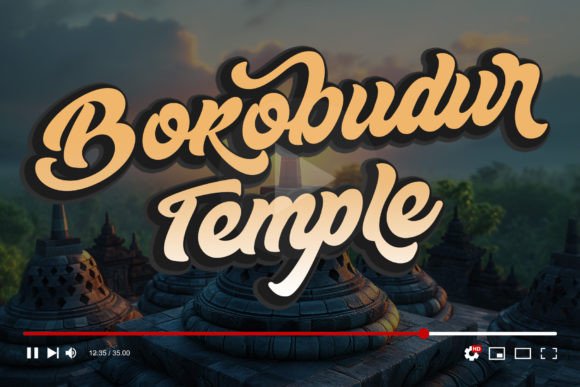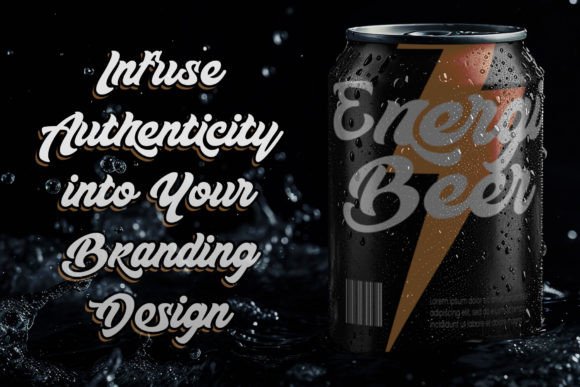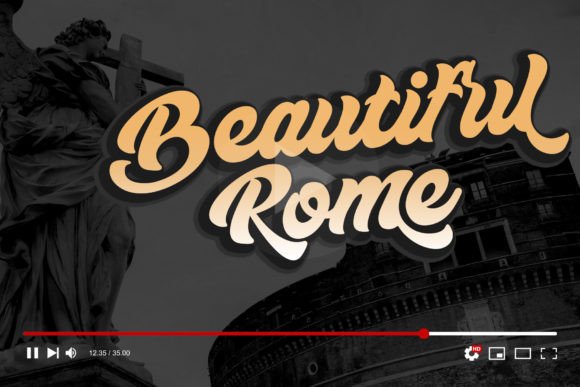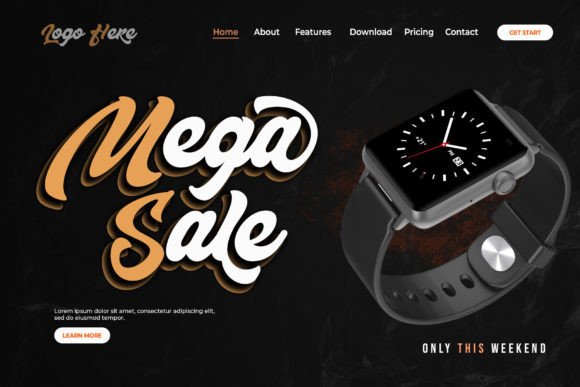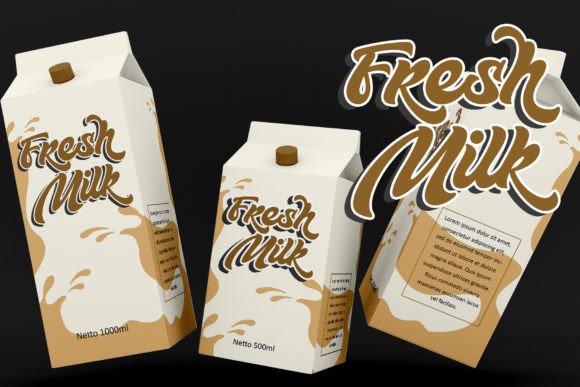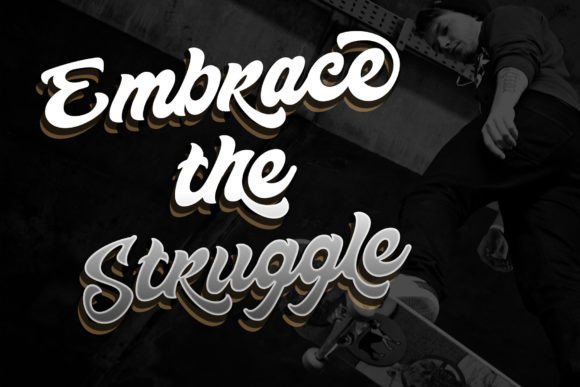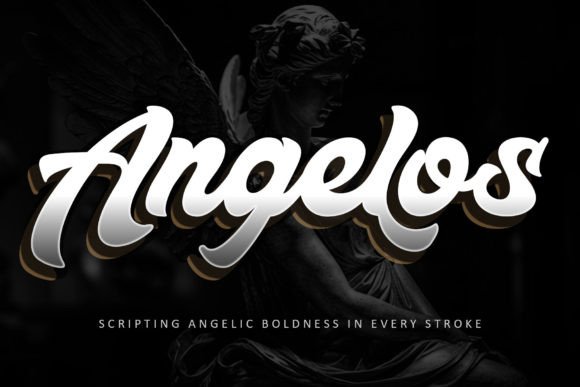
Introducing Angelos: The Epitome of Modern Elegance in Script Fonts
In the vast universe of typography, a good font can make all the difference in a design project. It’s not just about conveying a message; it’s about doing so with style and impact. This is where Angelos comes into play—a bold script font that has been meticulously crafted to bring a touch of modern elegance to your designs. With its unique blend of casual charm and versatility, Angelos is poised to become a staple in the toolkit of designers and crafters alike.
The Design Philosophy Behind Angelos
Angelos is more than just a font; it’s a statement. Its design is rooted in the philosophy of blending modernity with elegance, making it perfect for projects that demand a touch of sophistication. Whether you’re working on a branding project, a website design, or a crafting project, Angelos offers the perfect balance of boldness and finesse.
Key Features of Angelos Font
- Bold and Elegant Design: Angelos boasts a bold yet elegant design that commands attention without overwhelming the senses. Its script style is modern, yet it carries a timeless quality that will make your designs stand out.
- Casual Charm and Versatility: One of the standout features of Angelos is its casual charm. It’s versatile enough to be used in a variety of design projects, from formal invitations to modern branding.
- PUA Encoding for Enhanced Usability: Angelos comes with PUA (Private Use Area) encoding, which allows for easy access to a variety of glyphs and swashes. This feature significantly enhances its appeal and usability, making it easier for designers to experiment with different styles and effects.
Usage Ideas for Angelos Font
The versatility of Angelos means it can be used in a multitude of ways. Here are a few ideas to get you started:
- Headlines and Titles: Use Angelos as a headline font to grab attention. Its bold and elegant design makes it perfect for titles that need to stand out.
- Vibrant Backgrounds: Don’t be afraid to use Angelos on vibrant backgrounds. Its bold design ensures that your text remains legible and impactful, even on complex backgrounds.
- Branding and Logotypes: For brands looking to make a statement, Angelos can be a great choice for logotypes. Its unique style can help in creating a memorable brand identity.
- Invitations and Announcements: For crafters and designers working on invitations, announcements, or any form of formal or informal communication, Angelos adds a touch of elegance and sophistication.
Why Choose Angelos for Your Projects?
Choosing a font for your project can be overwhelming, given the numerous options available. However, Angelos stands out for several reasons:
- Unique Style: In a sea of similar fonts, Angelos offers a unique style that can help your projects stand out.
- Ease of Use: With PUA encoding, accessing different glyphs and swashes is straightforward, making the design process smoother and more efficient.
- Versatility: Whether it’s digital design or print, Angelos performs exceptionally well across various mediums.
Angelos is not just a font; it’s a design statement. Its bold yet elegant script style, combined with its versatility and ease of use, makes it an invaluable asset for designers and crafters. Whether you’re aiming to make a bold statement or add a touch of elegance to your projects, Angelos is sure to exceed your expectations. With its modern charm and timeless appeal, Angelos is set to become your go-to font for projects that demand a bit of sophistication and a lot of impact.